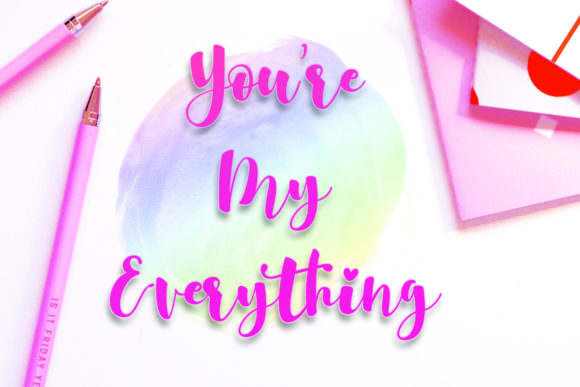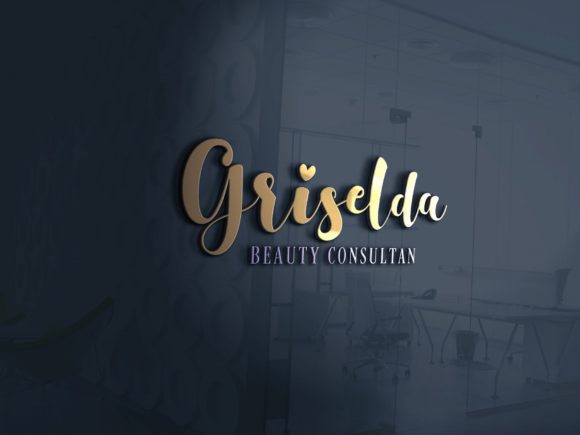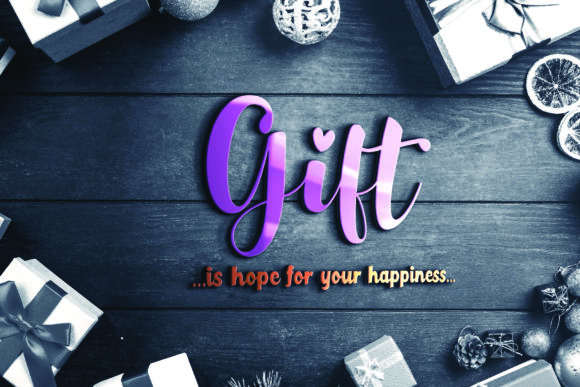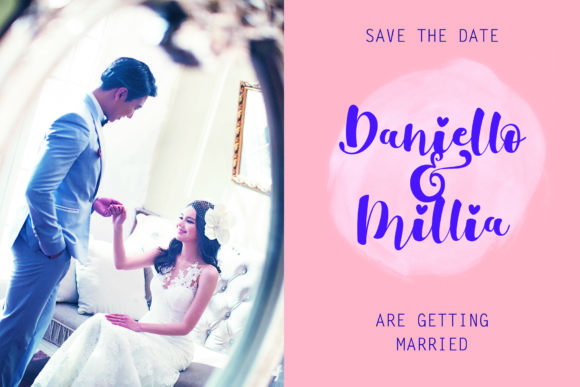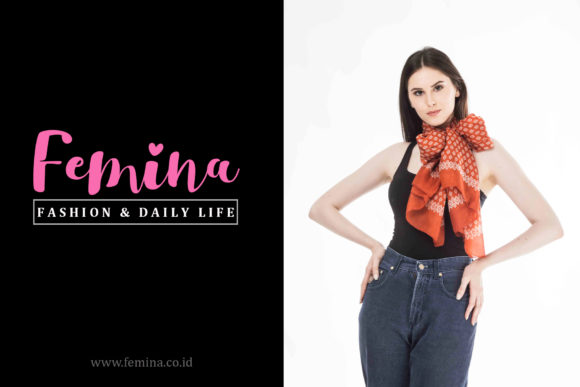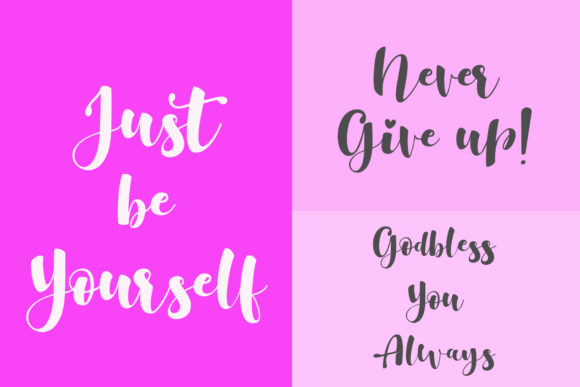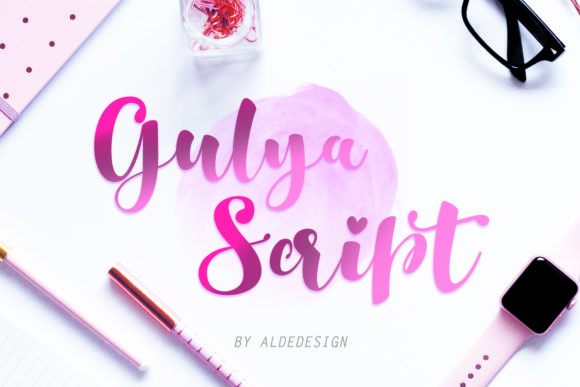
Gulya Script Font: The Perfect Choice for Feminine and Striking Designs
The Gulya script font is a stunning addition to the world of typography, offering a unique blend of femininity and striking appeal. This beautiful script font is perfect for designers and crafters looking to add a touch of elegance and sophistication to their projects. In this article, we’ll explore the features and benefits of the Gulya script font, and why it’s an excellent choice for logos, weddings, branding, and more.
A Feminine and Striking Font
The Gulya script font exudes a feminine vibe, making it an ideal choice for designs that require a touch of elegance and sophistication. Its striking look is sure to grab attention, making it perfect for logos, headlines, and other applications where you want to make a statement. The font’s unique blend of curves and lines creates a beautiful, flowing script that’s both visually appealing and easy to read.
The Gulya script font is an excellent choice for logos and branding projects. Its distinctive and cute design makes it perfect for businesses and organizations that want to stand out from the crowd. The font’s feminine appeal also makes it an excellent choice for brands that cater to a female audience or want to convey a sense of elegance and sophistication.
Wedding and Event Design
The Gulya script font is also perfect for wedding and event design. Its romantic and elegant design makes it an excellent choice for wedding invitations, save-the-date cards, and other stationery. The font’s striking appeal also makes it perfect for event branding, including signage, banners, and other promotional materials.
Crafting and DIY Projects
Crafters and DIY enthusiasts will love the Gulya script font for their projects. The font’s cute and distinctive design makes it perfect for handmade cards, gift tags, and other craft projects. The font’s feminine appeal also makes it an excellent choice for projects that require a touch of elegance and sophistication.
Key Features of the Gulya Script Font
- Feminine and striking design: The Gulya script font features a unique blend of curves and lines that create a beautiful, flowing script.
- Cute and distinctive: The font’s design is both cute and distinctive, making it perfect for logos, branding, and other applications where you want to stand out.
- Elegant and sophisticated: The Gulya script font exudes elegance and sophistication, making it perfect for designs that require a touch of refinement.
- Easy to read: Despite its ornate design, the Gulya script font is easy to read, making it perfect for body text and other applications where readability is important.
Tips for Using the Gulya Script Font
Here are some tips for using the Gulya script font in your designs:
- Use it as a headline font: The Gulya script font is perfect for headlines and titles, where its striking appeal can be used to grab attention.
- Pair it with a sans-serif font: Pairing the Gulya script font with a sans-serif font can create a beautiful contrast that adds visual interest to your design.
- Experiment with colors and textures: The Gulya script font looks great in a variety of colors and textures, so don’t be afraid to experiment and find the perfect combination for your design.
The Gulya script font is a beautiful and versatile font that’s perfect for designers and crafters looking to add a touch of elegance and sophistication to their projects. Its feminine and striking design makes it perfect for logos, weddings, branding, and much more. With its easy-to-read design and distinctive appeal, the Gulya script font is an excellent choice for any project that requires a touch of refinement and style.